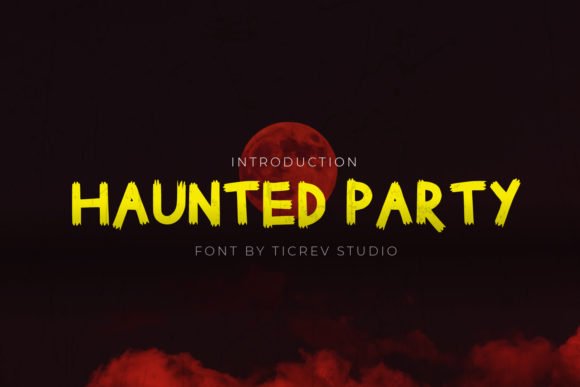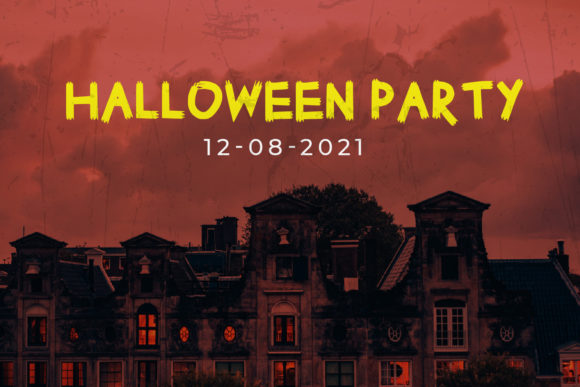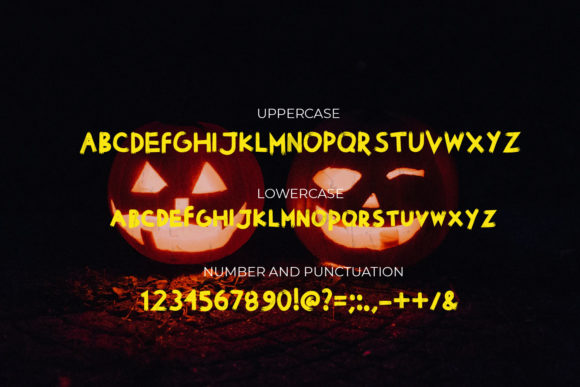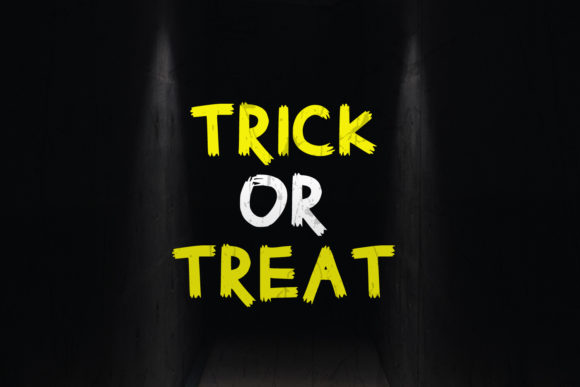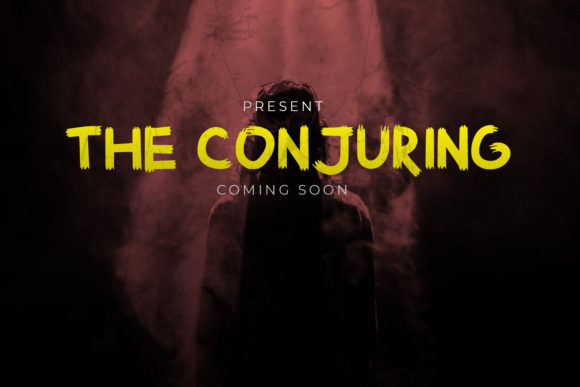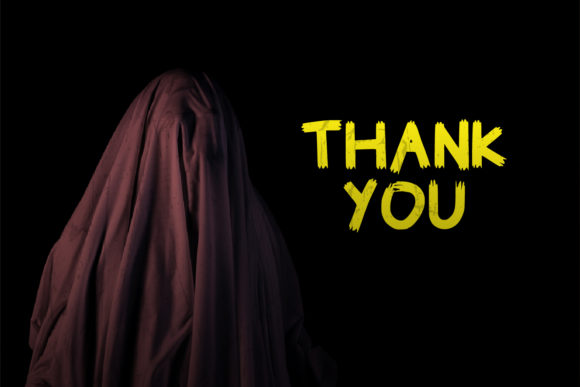
Unleash the Spooky Spirit with Haunted Party Font
There’s nothing quite like the thrill of staying up late to work on a creative project, the only sound being the creaks of your old house and the glow of your screen. It’s moments like these that make us feel truly alive, and for designers, the spark of inspiration can strike at any moment. For me, it was a Halloween-themed design project that sparked the idea to dig out a certain font that would bring my spooky creation to life.
Enter Haunted Party Font, a delightful display font with a wicked Halloween twist. This chunky lettered font is the perfect addition to any design that needs a dash of spooky charm. With its playful, yet eerie vibe, Haunted Party Font is sure to elevate your designs and leave a lasting impression. Whether you’re creating a Halloween-themed graphic, a spooky website, or a promotional material for a haunted house, this font is a valuable asset that’s sure to make your designs come alive.
Haunted Party Font Key Features
- Font Family: Haunted Party Font
- Unique Characteristics: Distressed, spooky, and playful font with a haunted theme, featuring irregular shapes, bold lines, and eerie textures
Haunted Party Font Review
As a designer, I was initially drawn to the spooky aesthetic of the Haunted Party Font. ✨ The font’s playful and whimsical style is perfect for adding a touch of Halloween magic to invitations, social media graphics, or even branding materials. The font’s distressed texture and subtle imperfections give it a unique, handmade feel that sets it apart from more generic font options.
One of the things I appreciate most about the Haunted Party Font is its versatility. ✨ It can be used for a wide range of projects, from spooky to sweet, and can be easily customized to fit your personal style. The font also includes a variety of ligatures and swashes, which add an extra layer of flair to your designs.
Limitsations:
- ⚠️ Limited character set: While the font includes a decent number of characters, it’s not a full Unicode font, which may limit its use for certain projects.
- ⚠️ Not ideal for body text: Due to its playful, handwritten style, the Haunted Party Font is best suited for headlines and titles, rather than body text.
Overall, I think the Haunted Party Font is a great addition to any designer’s toolkit. While it has some limitations, its unique style and versatility make it a standout choice for designers looking to add some spooky flair to their projects.
Some tips for getting the most out of the Haunted Party Font include:
- Using bold and italic styles to add emphasis to your text.
- Mixing the Haunted Party Font with other spooky fonts for a unique look.
- Using the font for Halloween-themed designs, such as invitations, decorations, and party favors.
- Creating custom graphics